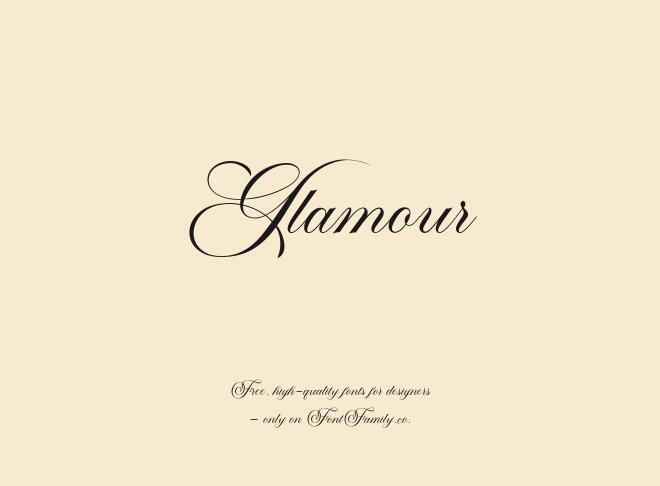
Glamour Font
Glamour Font is a contemporary, stylish script typeface designed by Creative Fonts. With its elegant and modern calligraphy style, it breathes life into any design project. It's perfect for fashion branding, wedding invitations, or any design that requires an upscale and sophisticated touch. Glamour Font stands out with its unique, flowing characters and sharp details, reminiscent of classic calligraphy, yet with a modern twist. It's a versatile font that can easily adapt to various design scenarios, always adding a touch of glamour. If you're a designer looking for a free, stylish, and modern calligraphy font, Glamour Font is the perfect choice. Its unique style sets it apart from other script fonts, making it a valuable asset in any designer's font library.